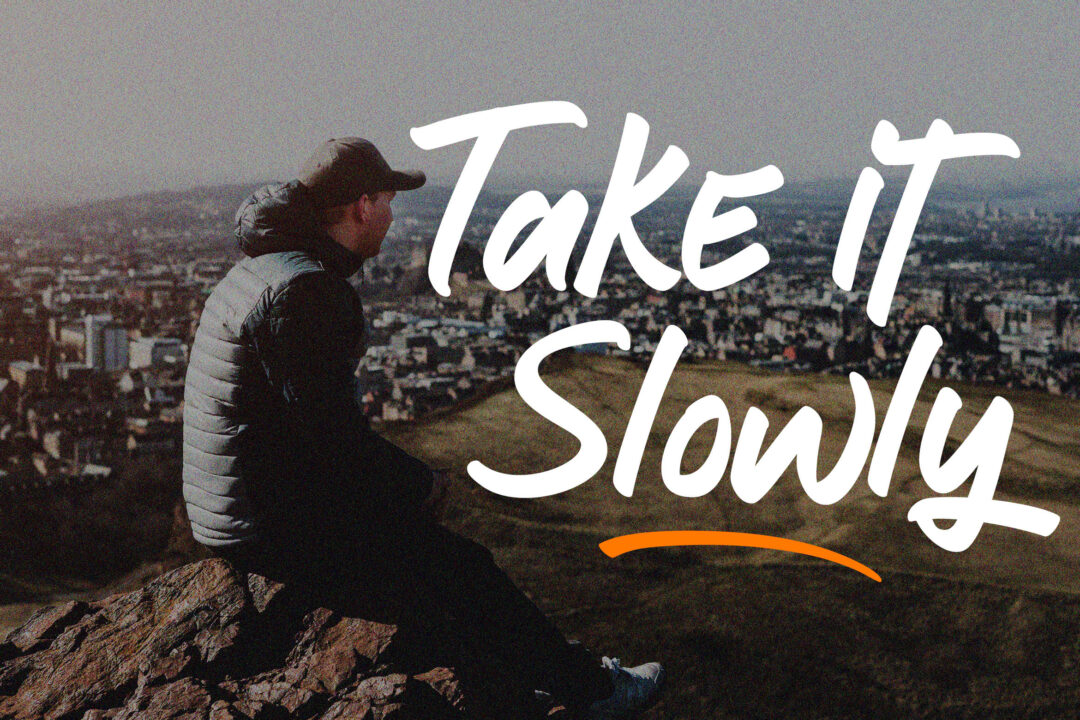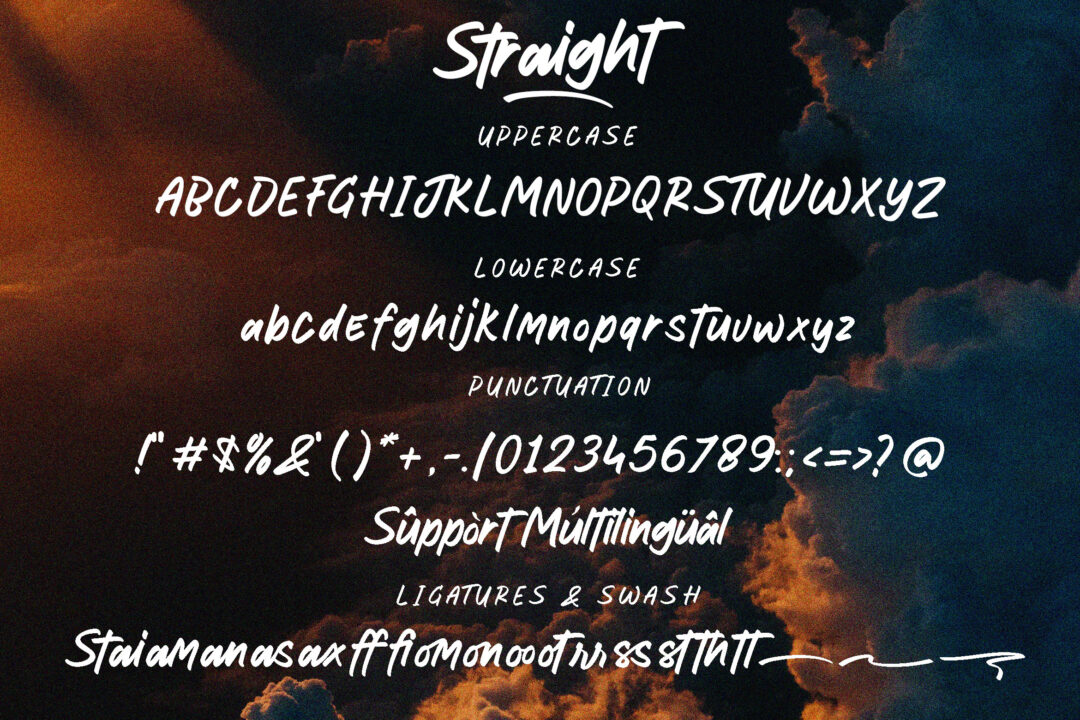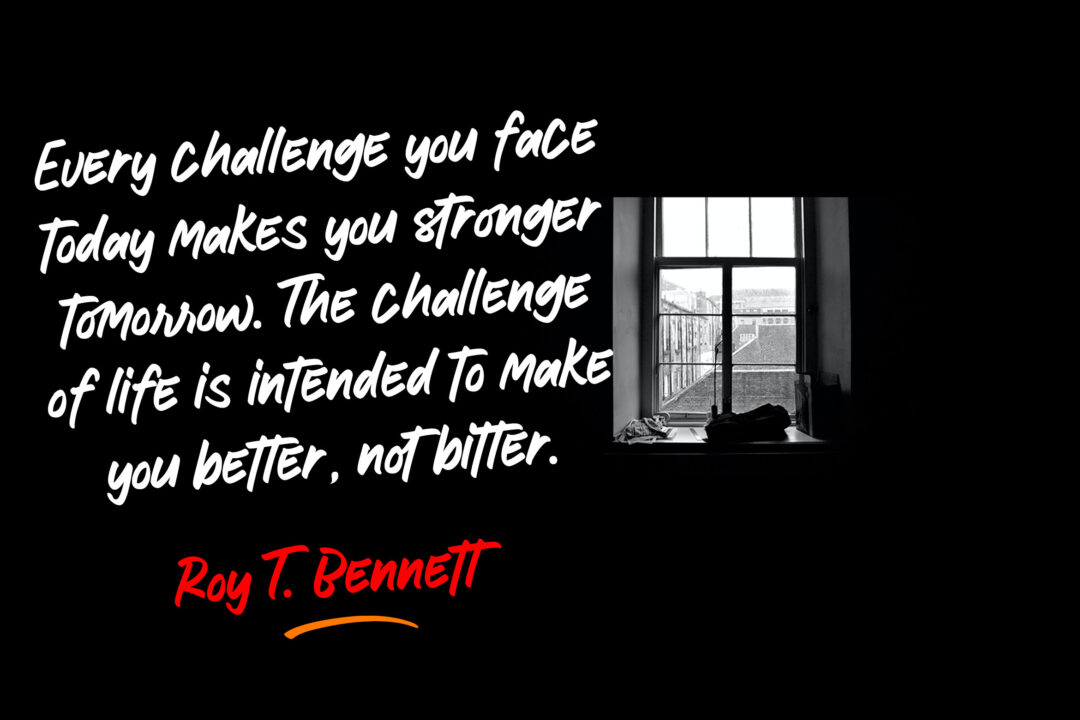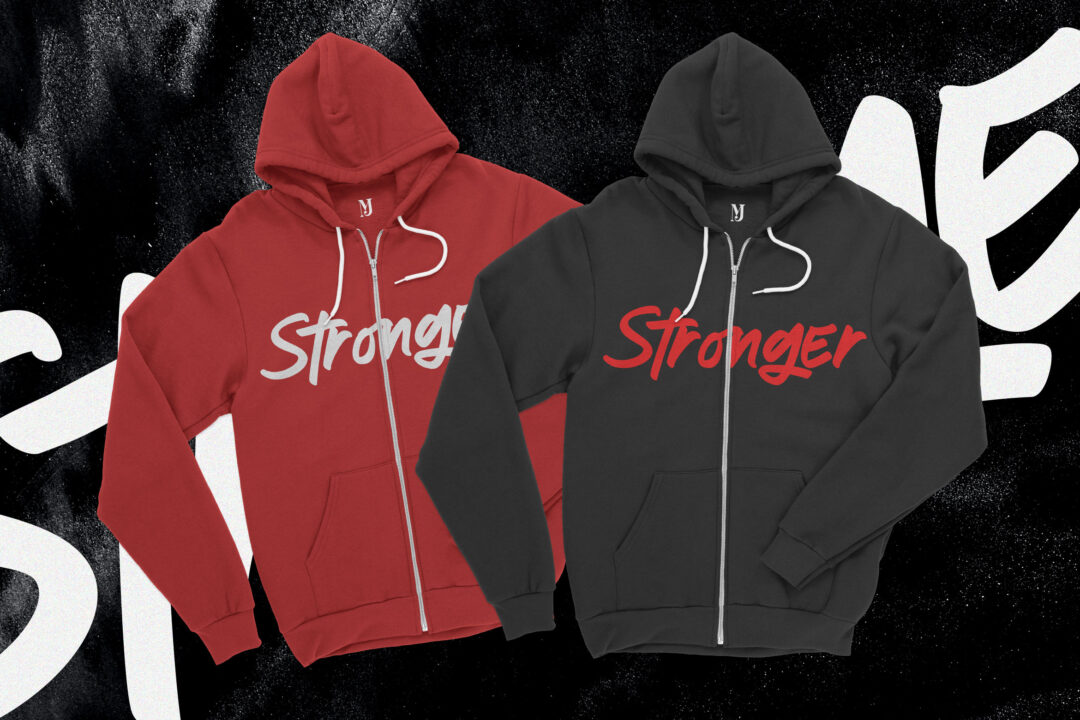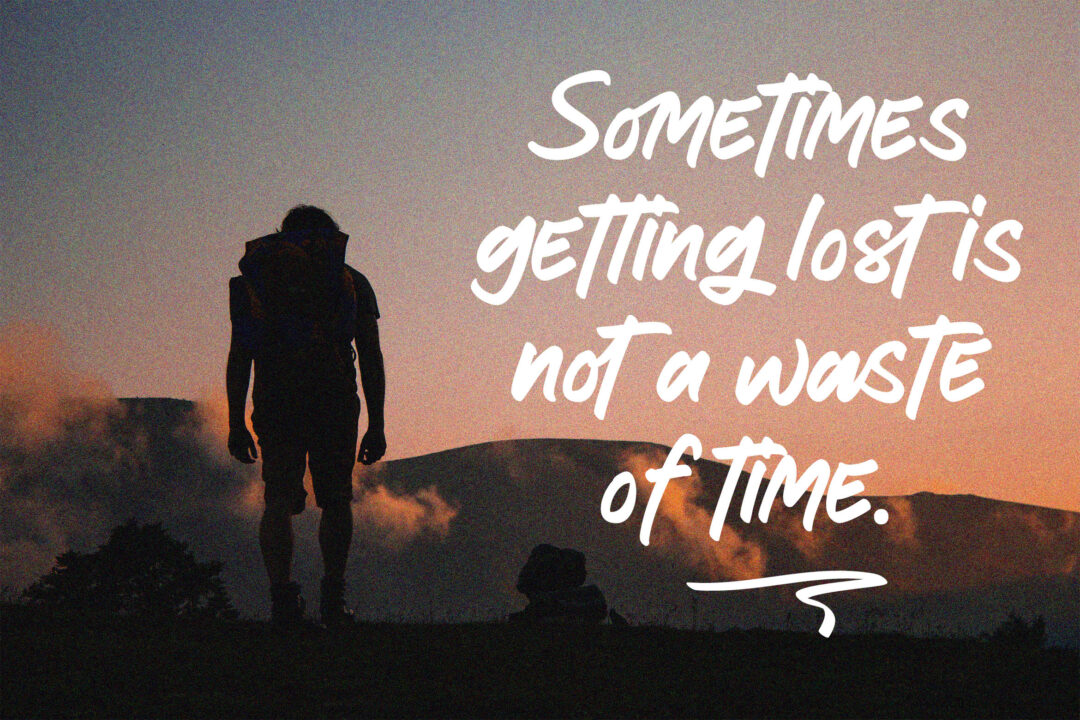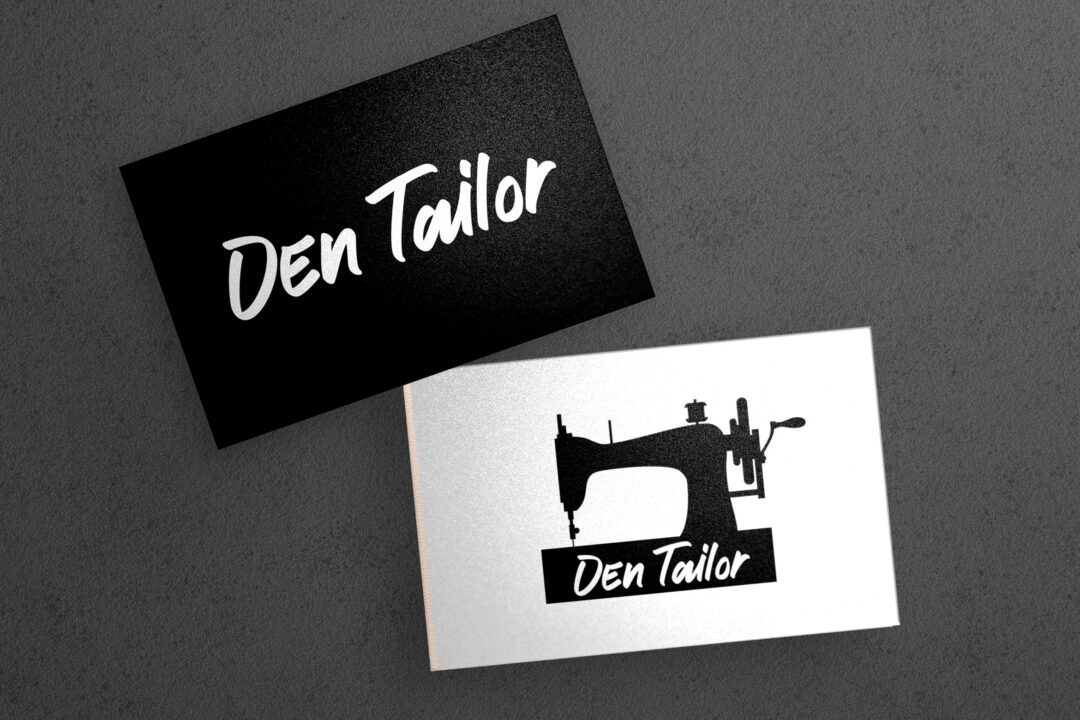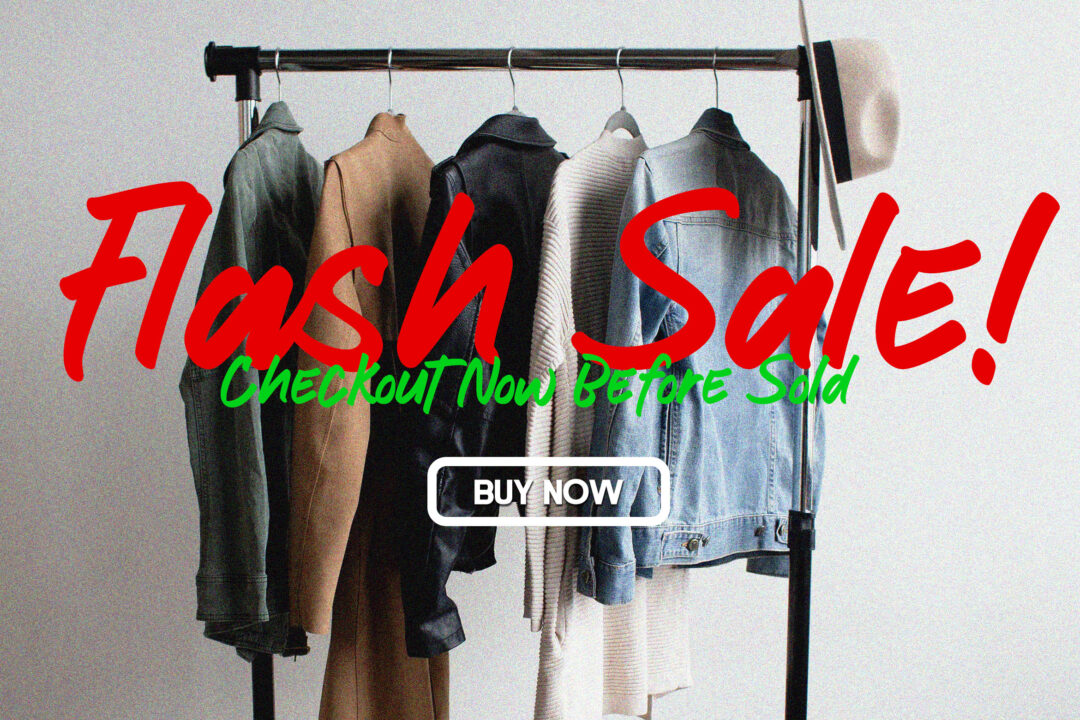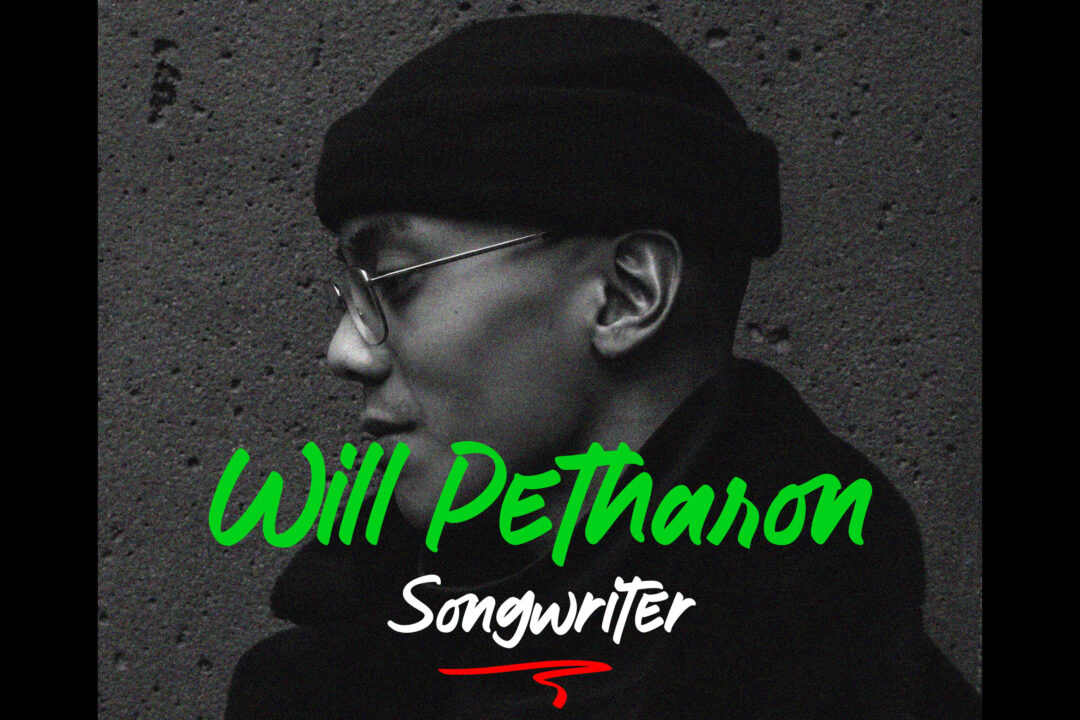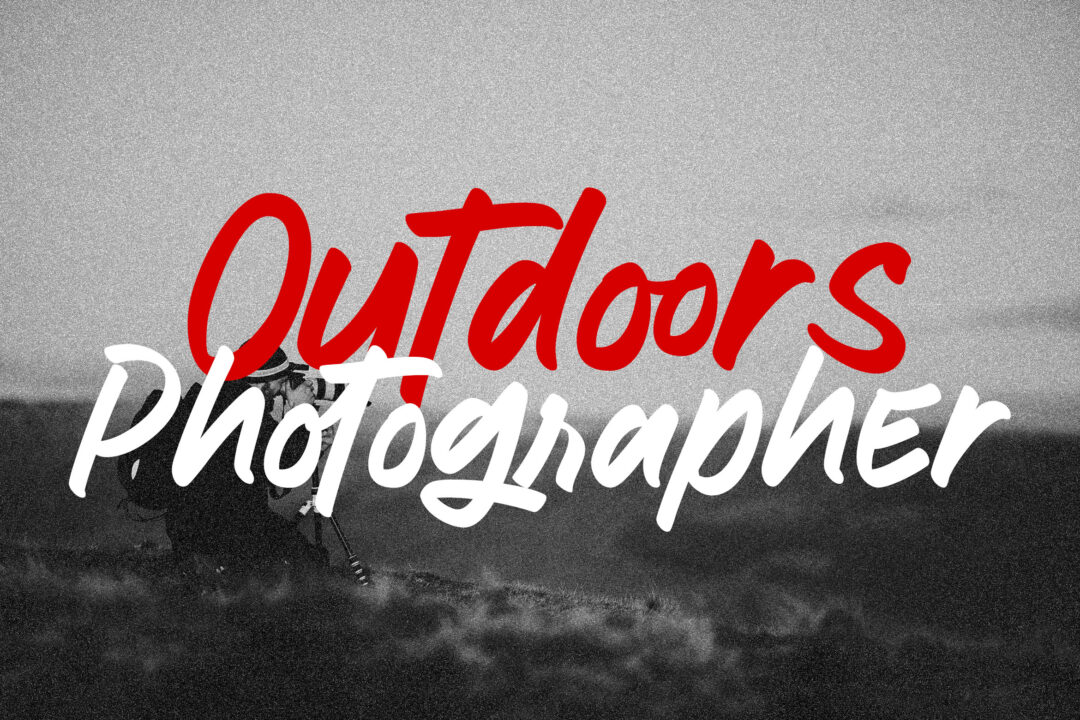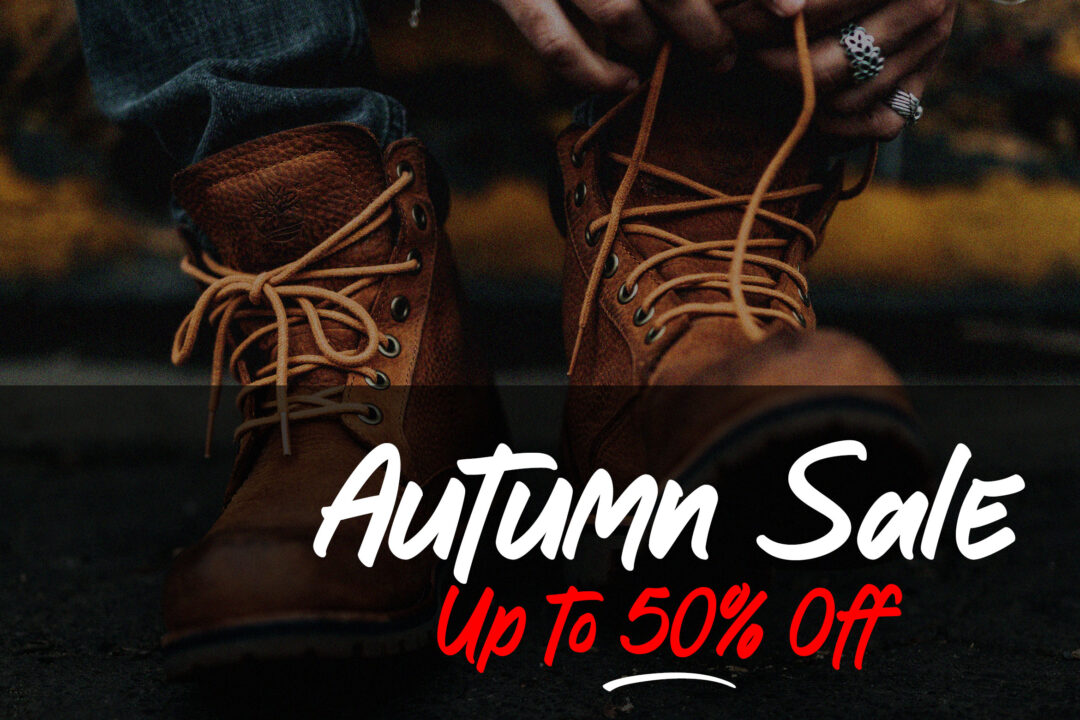
Straight
Introducing Straight! Discover the charm of this elegant Marker Font, Meticulously crafted, this font seamlessly blends each character to perfection, allowing you to create captivating combinations through Mix & Match. The result is a truly original look that caters to all your project requirements.
With its distinctive glyphs, Straight exudes individuality, and when brought together, they form a harmonious and visually engaging composition. This font effortlessly adapts to any project, making it a versatile choice for all your creative endeavors.
As showcased in the presentation image above, Straight exudes style and sophistication in various design projects. Its smooth lines and impeccable letterforms add a touch of elegance to your visuals, elevating the overall aesthetic appeal.
No matter the time or scope of your project, Straight is the ideal font choice. Its versatility knows no bounds, allowing you to create stunning designs for any occasion. Let Straight be your trusted companion, enhancing the visual impact and charm of your work with its timeless elegance.